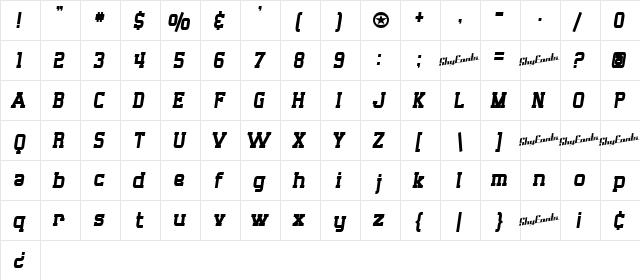
SF Big Whiskey Condensed Bold Font Preview
Design Context for SF Big Whiskey Condensed Typeface
SF Big Whiskey Condensed offers clean, dependable letterforms without strong stylistic allegiance, making it a practical choice for designers who need flexibility. The heavy weight commands attention and anchors typographic hierarchies. Its narrow stance lets it pack a punch even in space-constrained designs.